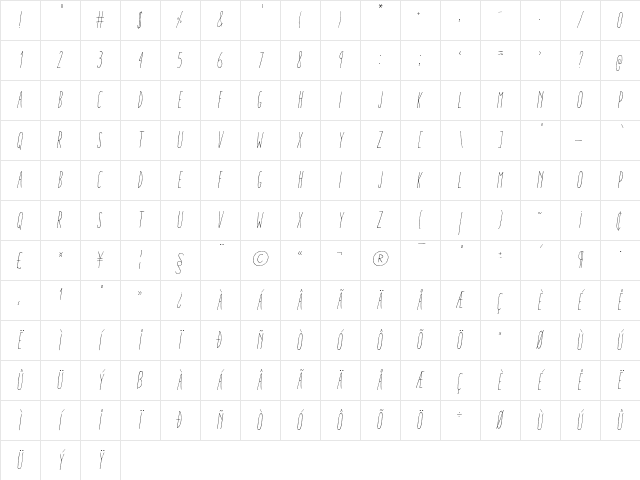
Aracne Ultra Condensed Light Italic Ultra-condensed Light Italic Free Font
Aracne Ultra Condensed Light Italic Ultra-condensed Light Italic
Foundry: Julia Martinez Diana, Antipixel.
Designer: Julia Martinez Diana, Antipixel
Design Context for Aracne Ultra Condensed Light Italic
Aracne Ultra Condensed Light Italic is a composed and adaptable typeface that performs quietly and consistently across a wide range of design contexts. The slanted form adds forward momentum and visual energy. Its slender proportions lend an understated elegance to any composition. Its narrow stance lets it pack a punch even in space-constrained designs.
Pro Tip: Use Aracne Ultra Condensed Light Italic for emphasis, pull quotes, and subheadings where its slanted energy can add rhythm to the layout.